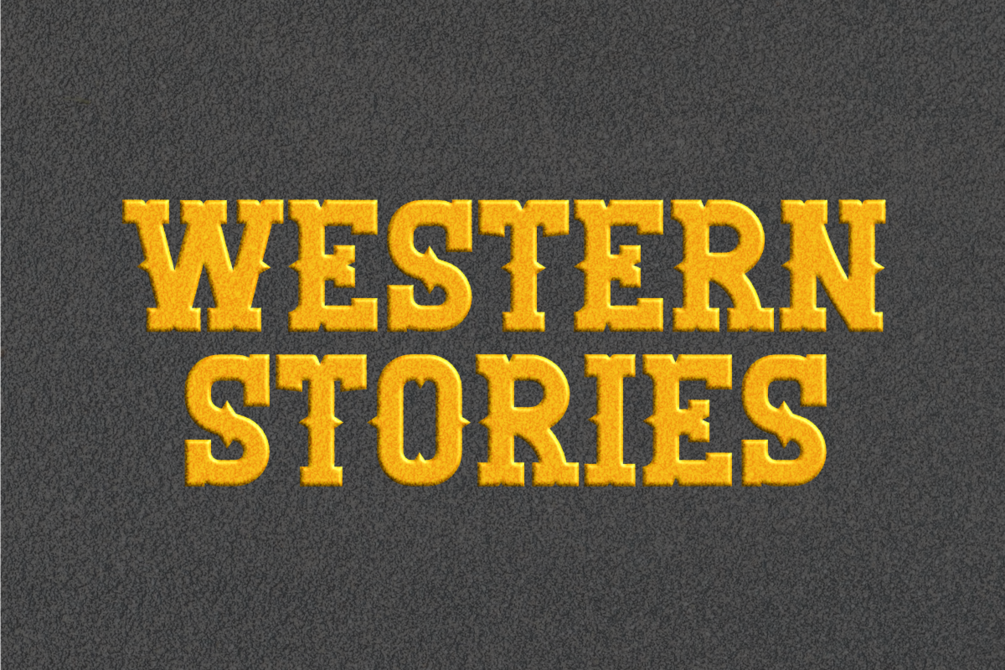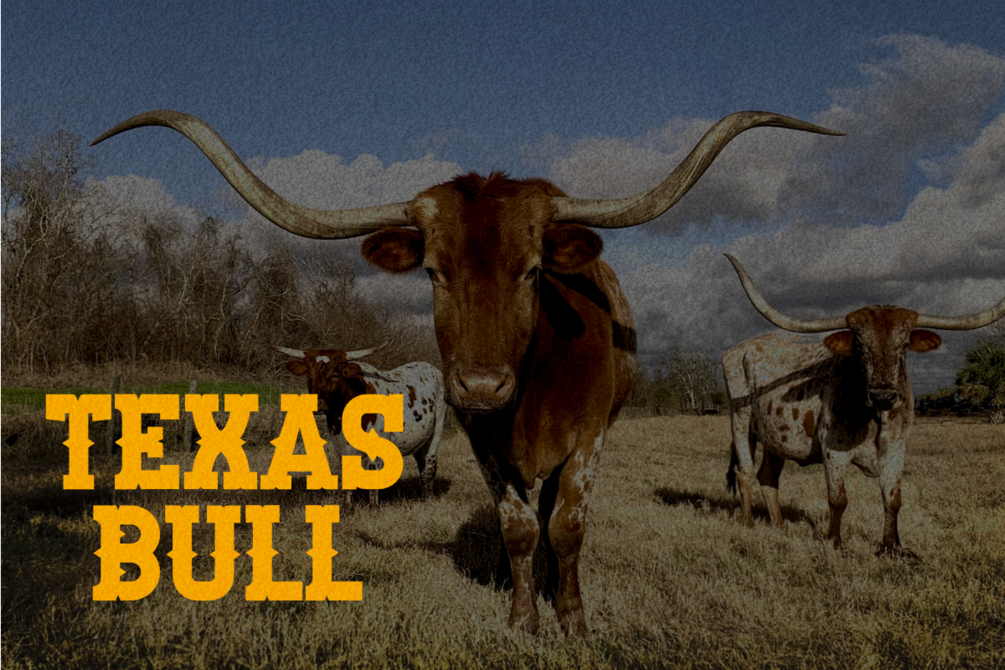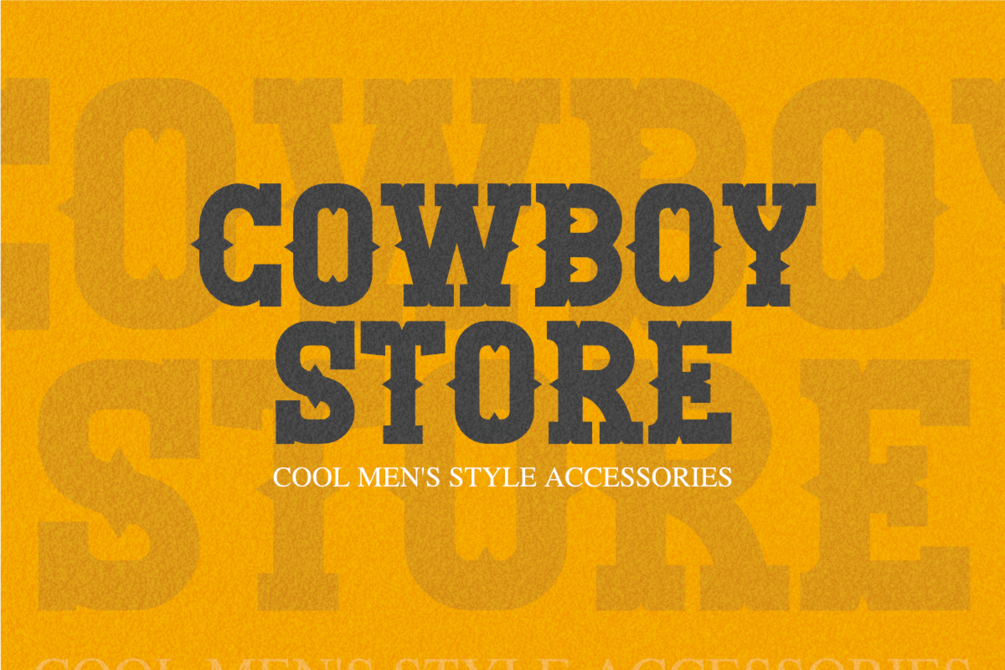
Cowboy College - Retro Western Font
Cowboy College is a stunning Retro Western decorative font. A font that is very suitable for crafts, labels, quotes, SVG files, decorations, labels, logotypes, book covers, t-shirts, web, posters, stickers, wall art, or other ideas. A font suitable for Crafters and Graphic Designers. This font is also suitable for Social Media. Compatible with various tools such as Photoshop or Silhouette Design Project.